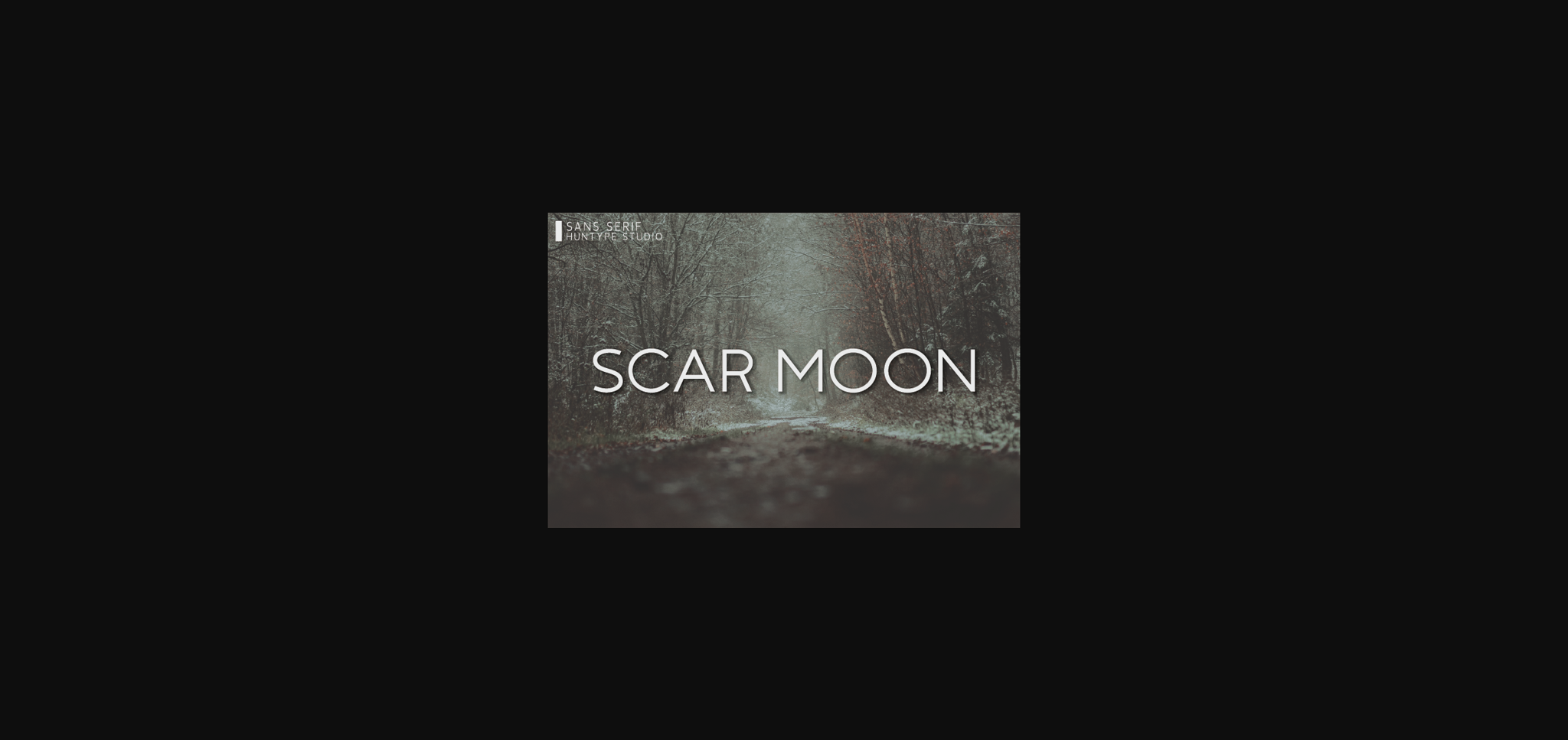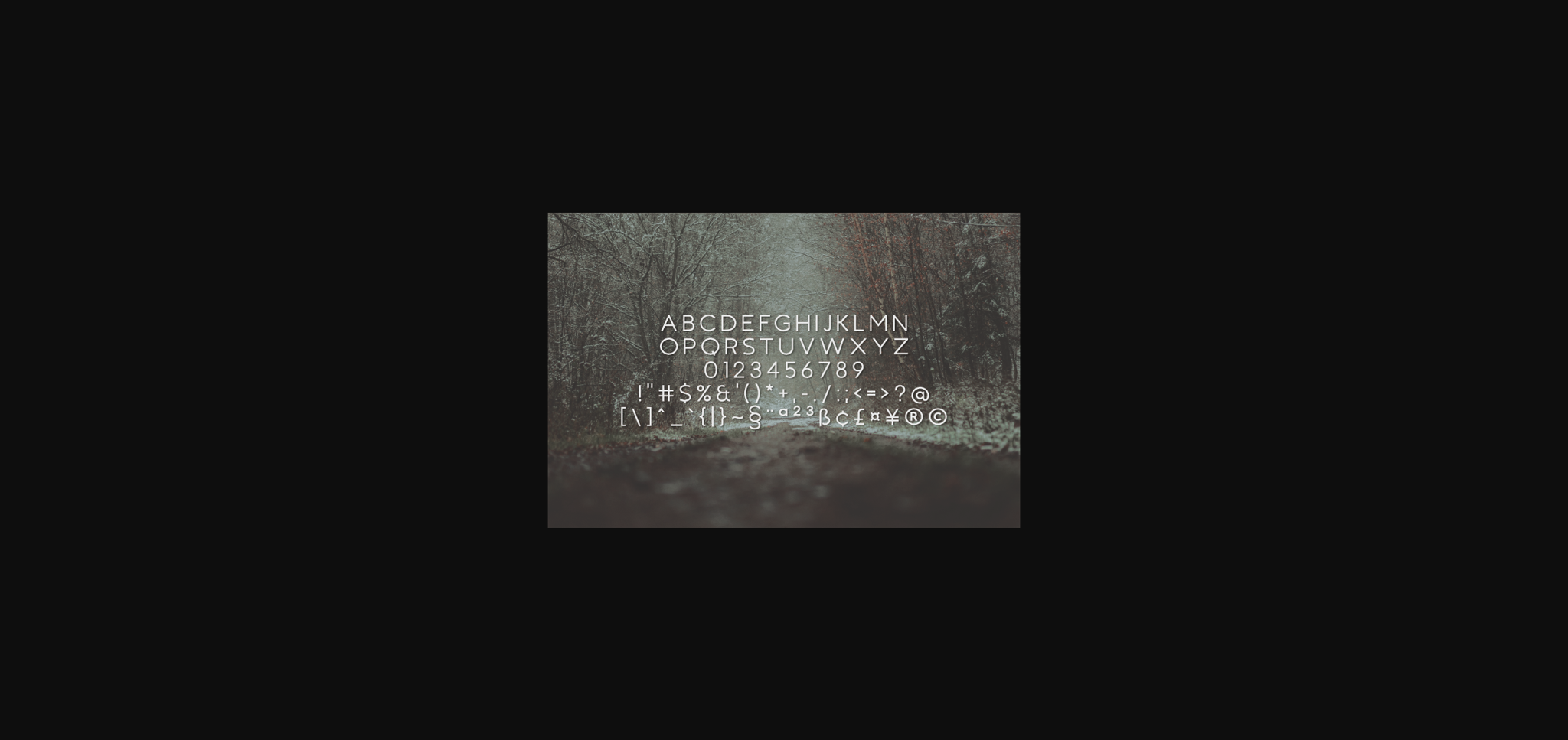
Scar Moon Font
About Scar Moon Font
Scar Moon is a modern sans serif font that is readable, thin and stylish. It is perfect for fashion branding or editorial designs. Add it confidently to your projects, and you will love the results.